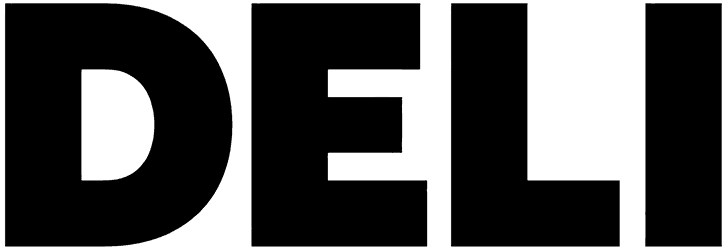
Deli Font
Your design can look modern and professional when you choose a modest letterform like this sans serif font. The characters of this basic font are bold and modest, which can make it match different topics. Deli font doesn’t support lowercase letters, but it can still be a nice adornment for a carwash billboard.